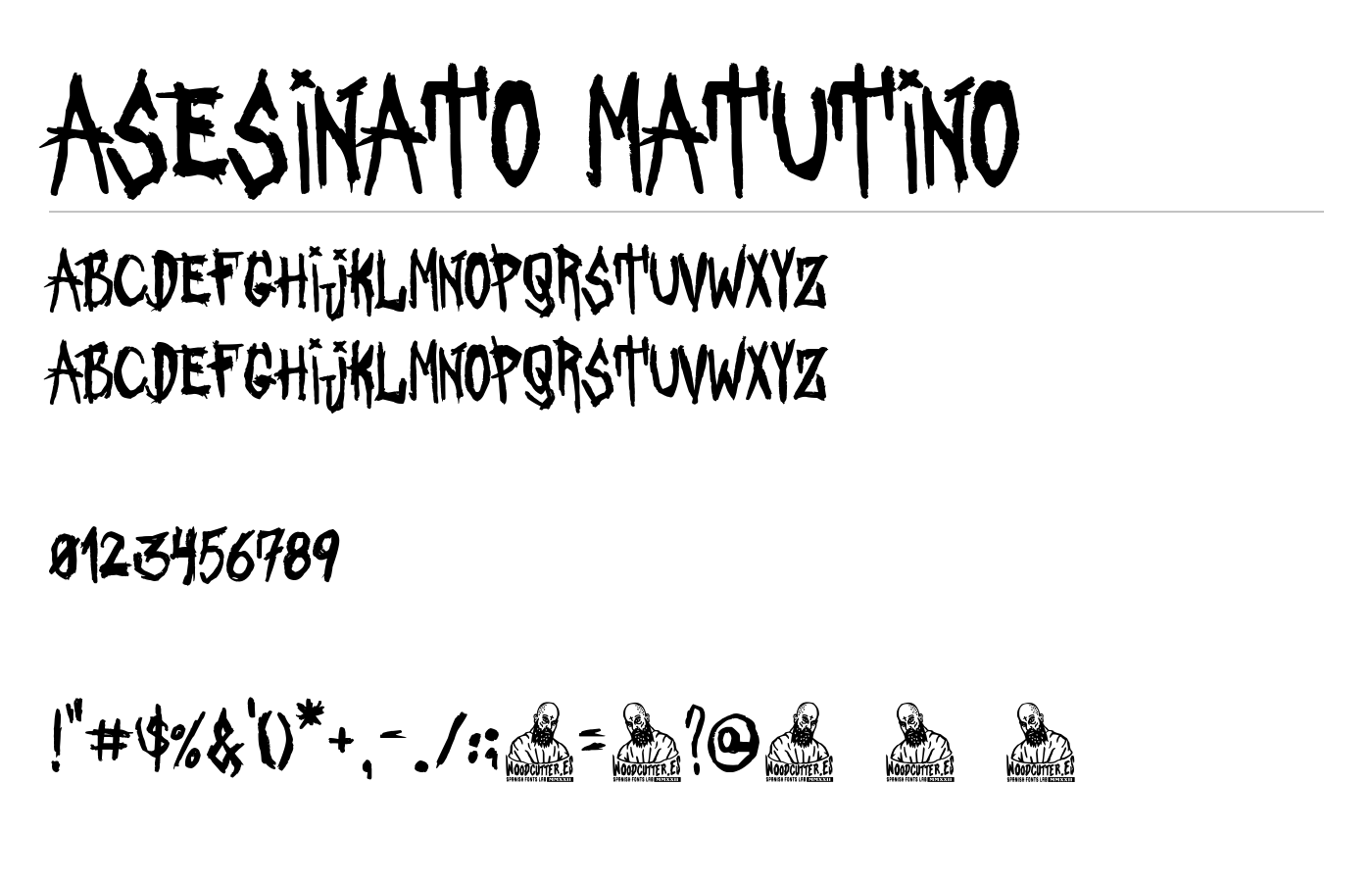
Asesinato Matutino is a bold, hand-drawn display font with a rough, edgy appearance, featuring narrow, tall letterforms that give it a distressed and intense vibe. Its irregular strokes and sharp, jagged edges create a dramatic, somewhat eerie style, making it ideal for projects that want to convey a sense of horror, mystery, or rebellious energy. This font works best in headlines, posters, or branding for edgy, creative, or alternative themes where a strong visual impact is essential.
Asesinato Matutino Font
About Asesinato Matutino Font